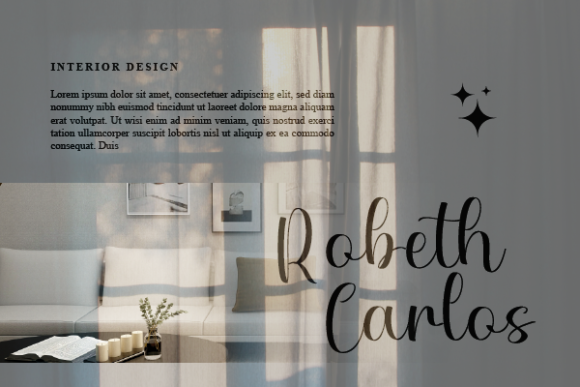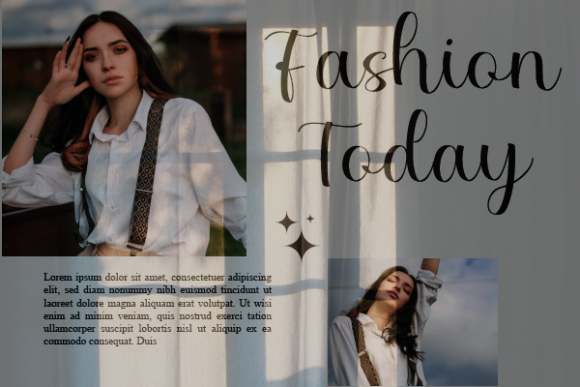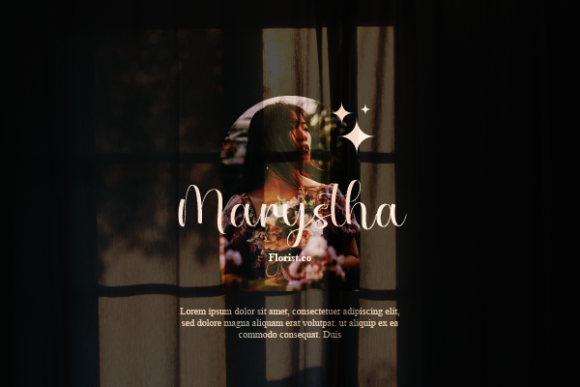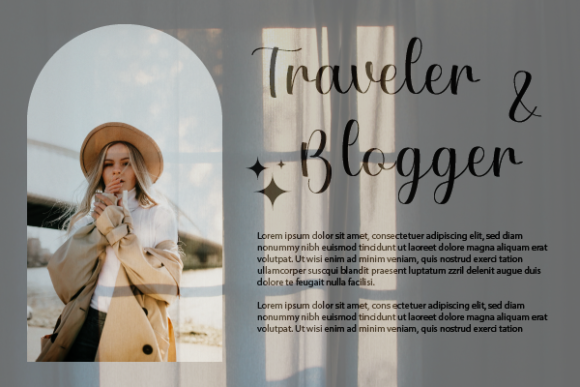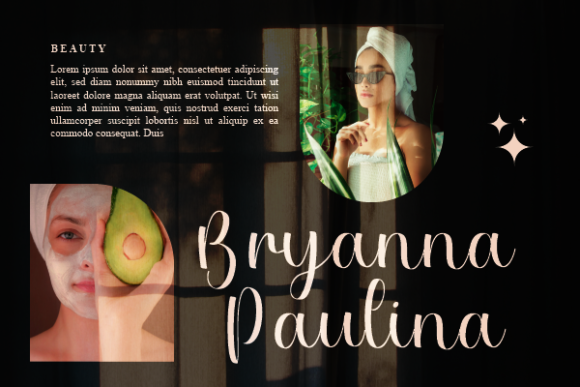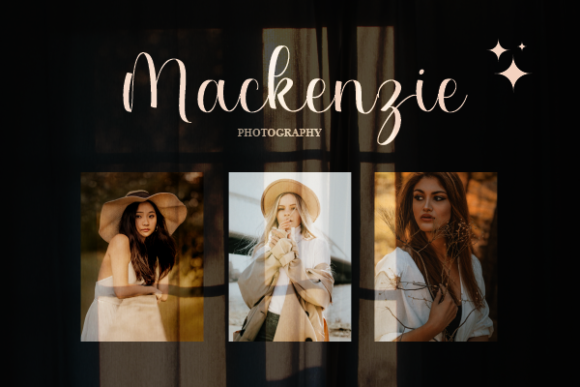
Introducing Griffin Simeon Font: The Ultimate Script Font for Designers and Crafters
In the world of typography, script fonts have always been a popular choice for designers and crafters looking to add a touch of elegance and sophistication to their projects. One such font that has gained significant attention in recent times is the Griffin Simeon Font. This trendy and stylish script font has become a go-to choice for creating stunning designs that require a handwritten touch.
What is Griffin Simeon Font?
Griffin Simeon Font is a beautiful script font that boasts a unique and elegant style. Its flowing lines and curves make it perfect for adding a touch of sophistication to various designs. Whether you’re working on wedding invitations, thank you cards, quotes, greeting cards, logos, business cards, or any other project that requires a personal touch, Griffin Simeon Font is an excellent choice.
Key Features of Griffin Simeon Font
So, what makes Griffin Simeon Font stand out from the rest? Here are some of its key features:
- Trendy and Stylish: Griffin Simeon Font is a modern script font that is both trendy and stylish. Its unique design makes it perfect for creating designs that are contemporary and eye-catching.
- Elegant and Sophisticated: The font’s flowing lines and curves give it an elegant and sophisticated look, making it perfect for designs that require a touch of luxury.
- Handwritten Touch: Griffin Simeon Font has a handwritten feel to it, which makes it perfect for designs that require a personal touch.
- Versatile: This font can be used for a wide range of designs, including wedding invitations, thank you cards, quotes, greeting cards, logos, business cards, and more.
Why Use Griffin Simeon Font?
There are many reasons why designers and crafters love using Griffin Simeon Font. Here are a few:
- Adds a Personal Touch: The font’s handwritten feel adds a personal touch to designs, making them more special and unique.
- Enhances Visual Appeal: Griffin Simeon Font’s elegant and sophisticated design enhances the visual appeal of designs, making them more eye-catching and engaging.
- Easy to Read: Despite its elegant design, Griffin Simeon Font is easy to read, making it perfect for designs that require a clear and concise message.
- Customizable: The font can be customized to fit various design requirements, making it a versatile choice for designers and crafters.
How to Use Griffin Simeon Font?
Using Griffin Simeon Font is easy. Here are some tips:
- Pair it with Other Fonts: Pair Griffin Simeon Font with other fonts to create a unique and visually appealing design.
- Use it for Headings and Titles: Use Griffin Simeon Font for headings and titles to add a touch of elegance and sophistication.
- Keep it Simple: Keep your design simple and clean to ensure that the font is the focal point.
In conclusion, Griffin Simeon Font is a trendy and stylish script font that is perfect for designers and crafters looking to add a touch of elegance and sophistication to their projects. Its unique design, elegant style, and versatility make it a popular choice for various designs. Whether you’re working on wedding invitations, thank you cards, quotes, greeting cards, logos, business cards, or any other project that requires a handwritten touch, Griffin Simeon Font is an excellent choice.